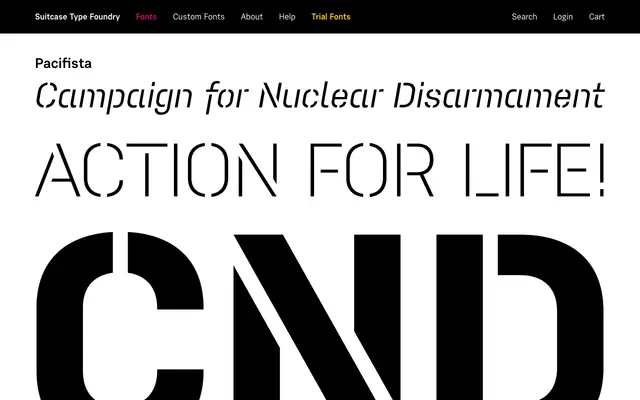
A humanist sans-serif from Suitcase Type Foundry, grouped alongside the studio's Idealista and Nudista families.
Pacifista sits within Suitcase Type Foundry's broader catalogue of humanist sans-serif designs, related to Idealista, Kulturista and Nudista. The page content available offers limited detail on its specific weights and features, but the family follows the foundry's characteristic approach to legible, professionally considered text typefaces. Suited to editorial and identity work requiring a clean, unobtrusive humanist voice.
Related to Suitcase's Idealista and Nudista families, which are humanist sans-serif designs; the naming convention and grouping strongly suggest a similar humanist sans-serif classification.